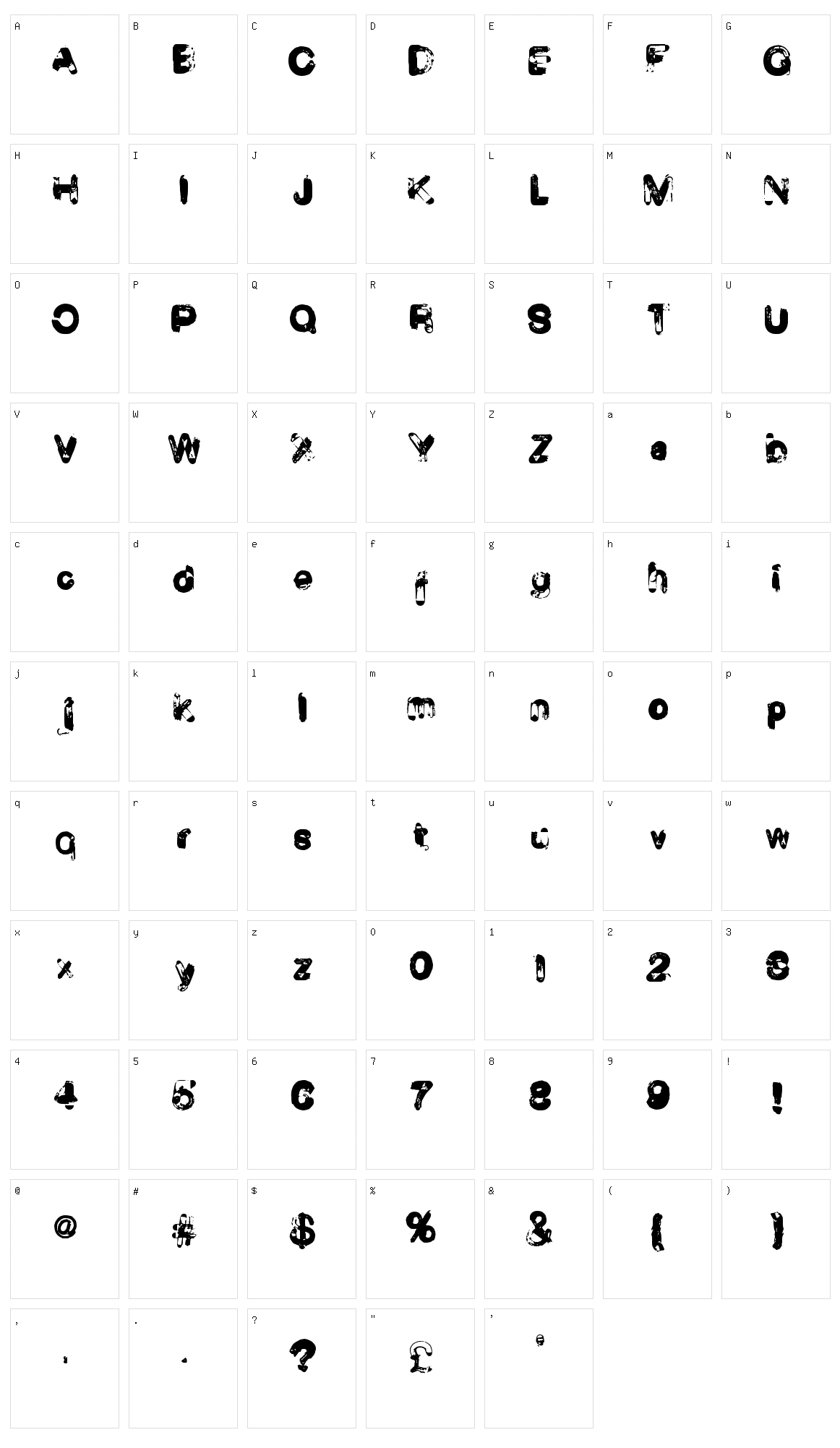
The free font Dirty Boy is carefully designed by Graphics Bam, showcasing a thoughtful balance of creativity and usability and falls under the Destroy font style. When you download the ZIP file, it contains only 41.25 KB of font files, making it lightweight and quick to download. Please review the license details below to understand permitted usage and distribution rights. If license information is not available, we recommend using this font for personal projects only or contacting the author directly for commercial usage permissions.